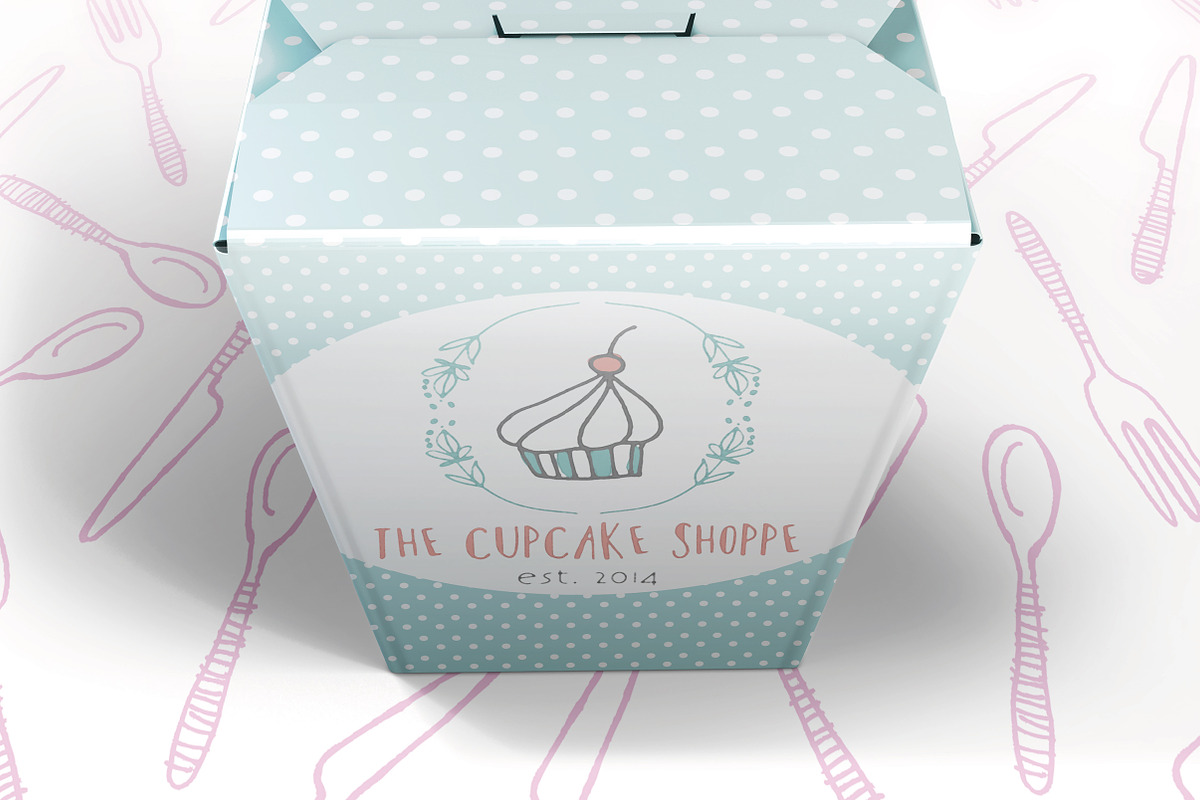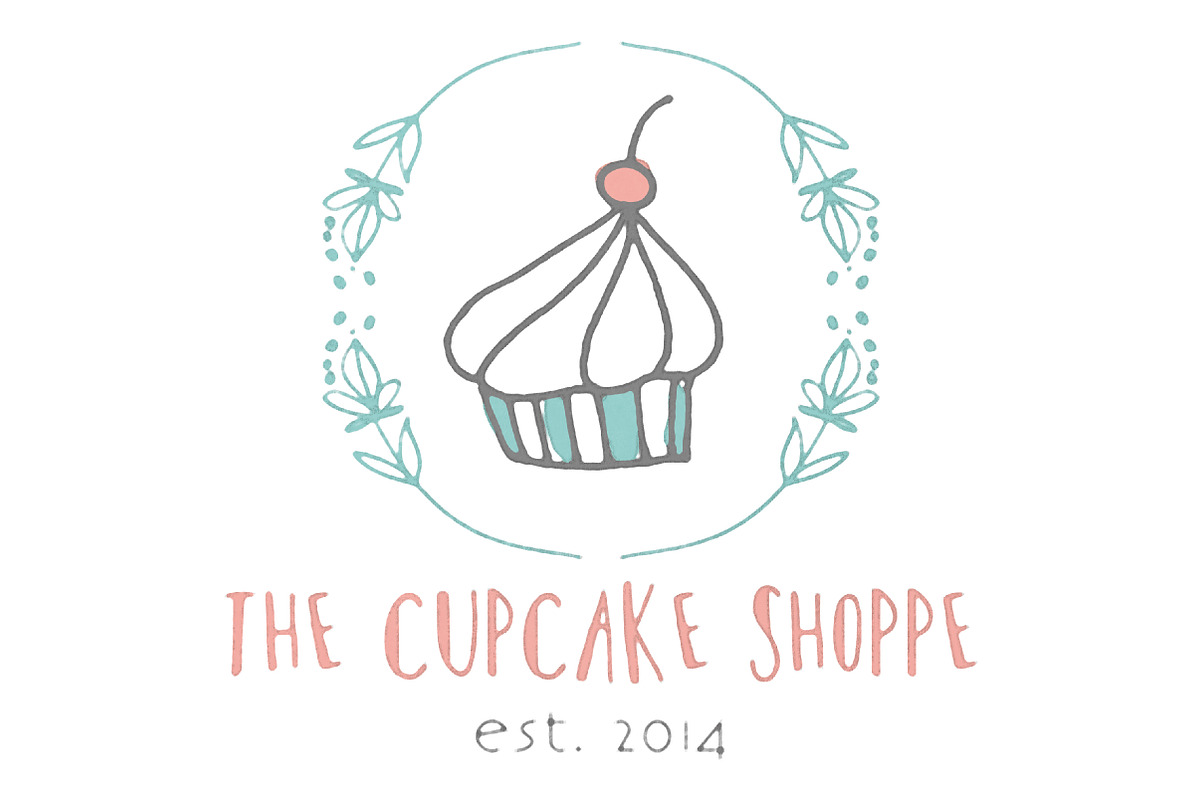
Hand Drawn Font- "Barber Shop"
Hand Drawn Font- "Barber Shop" by Shelly Laslo Illustration is a font selected for branding, posters, packaging, typography.
Hand Drawn Font- "Barber Shop" by Shelly Laslo Illustration fits naturally into Branding, posters, packaging, typography.